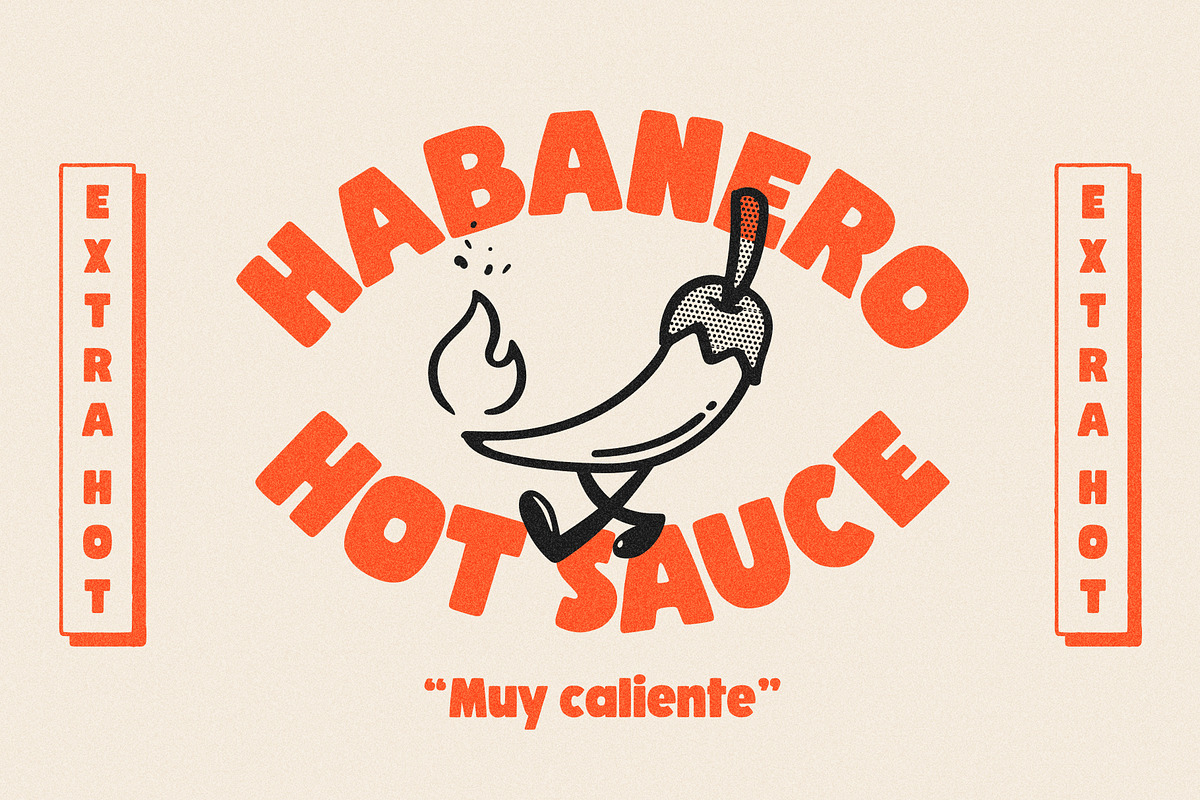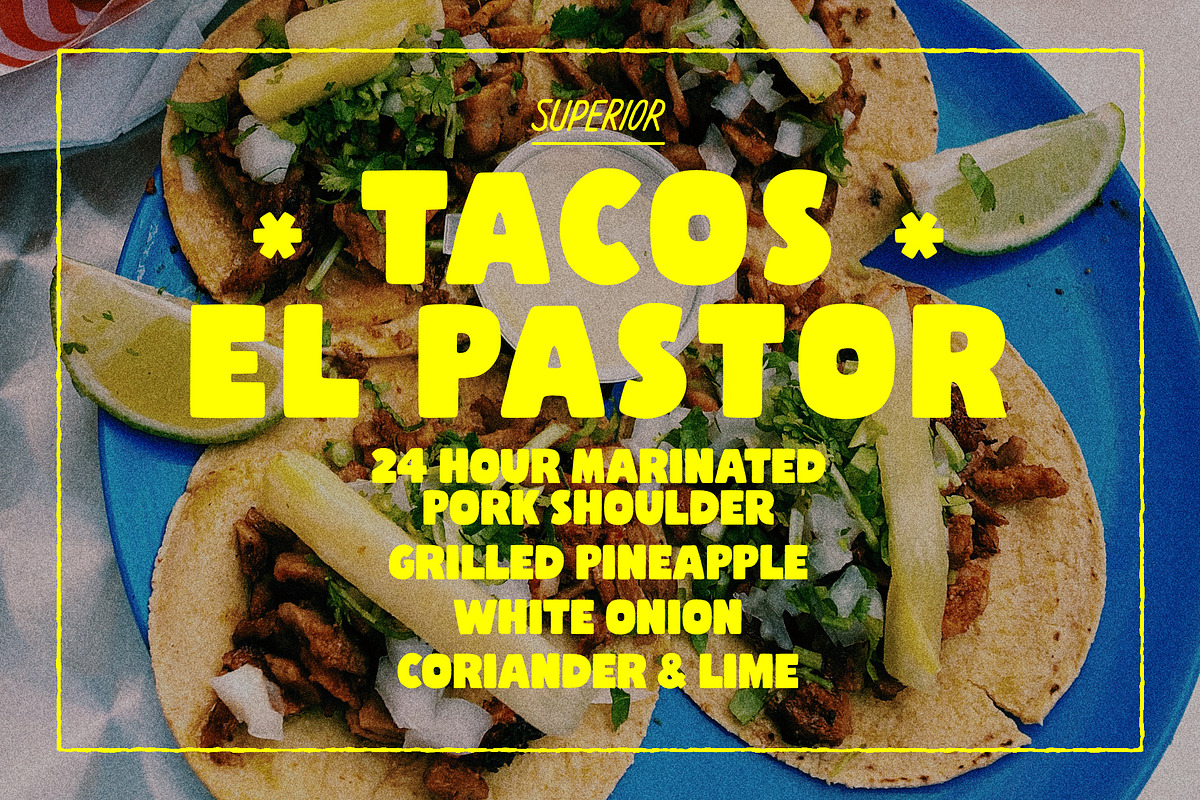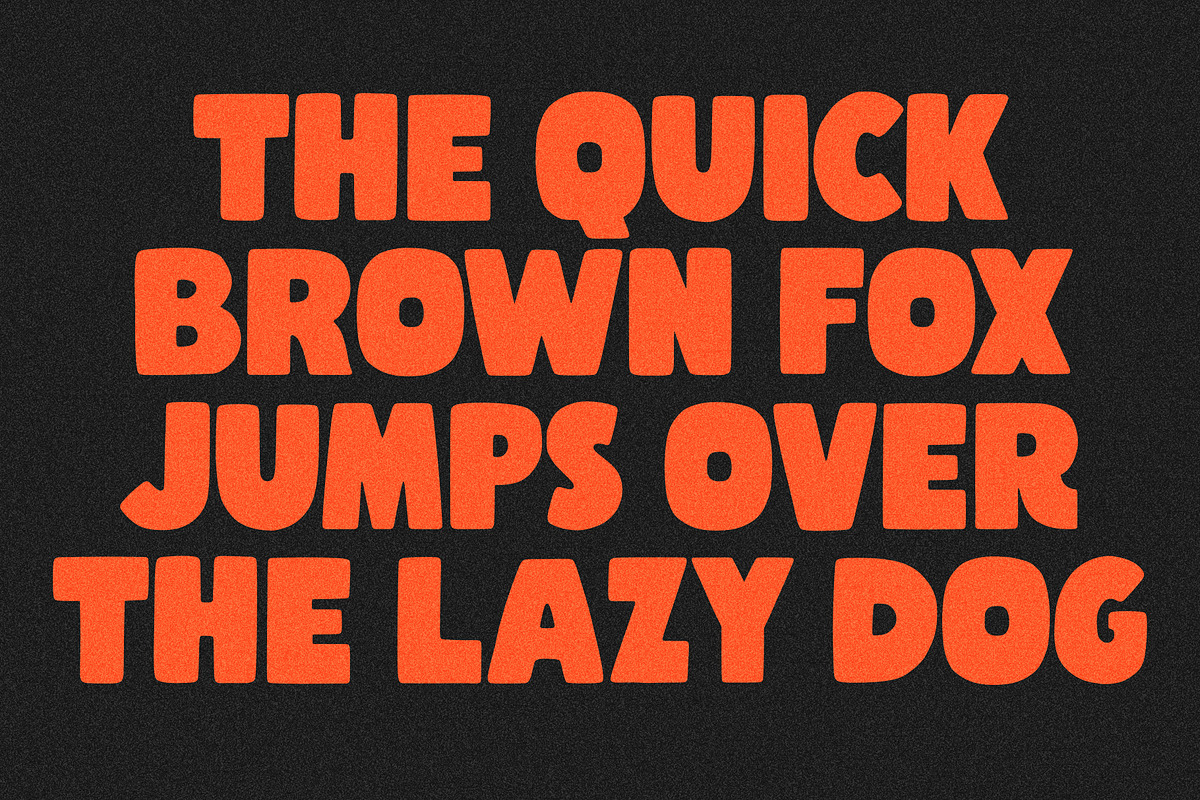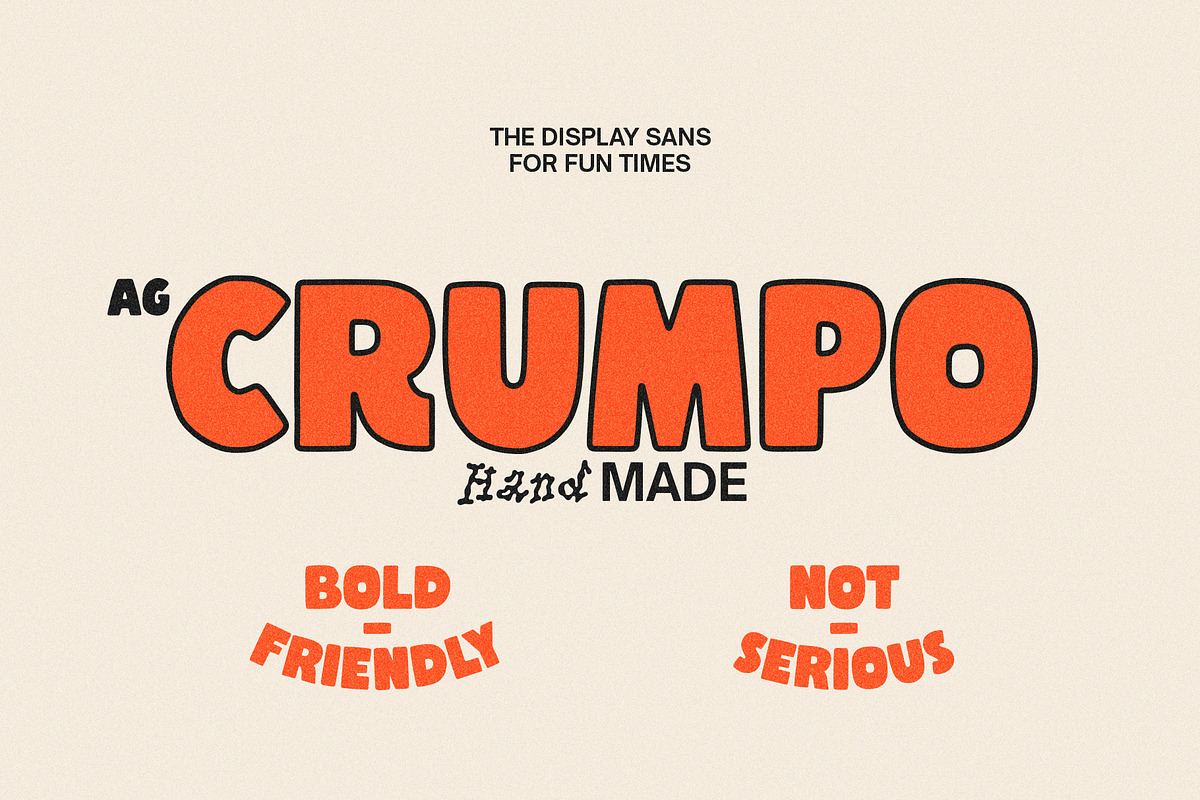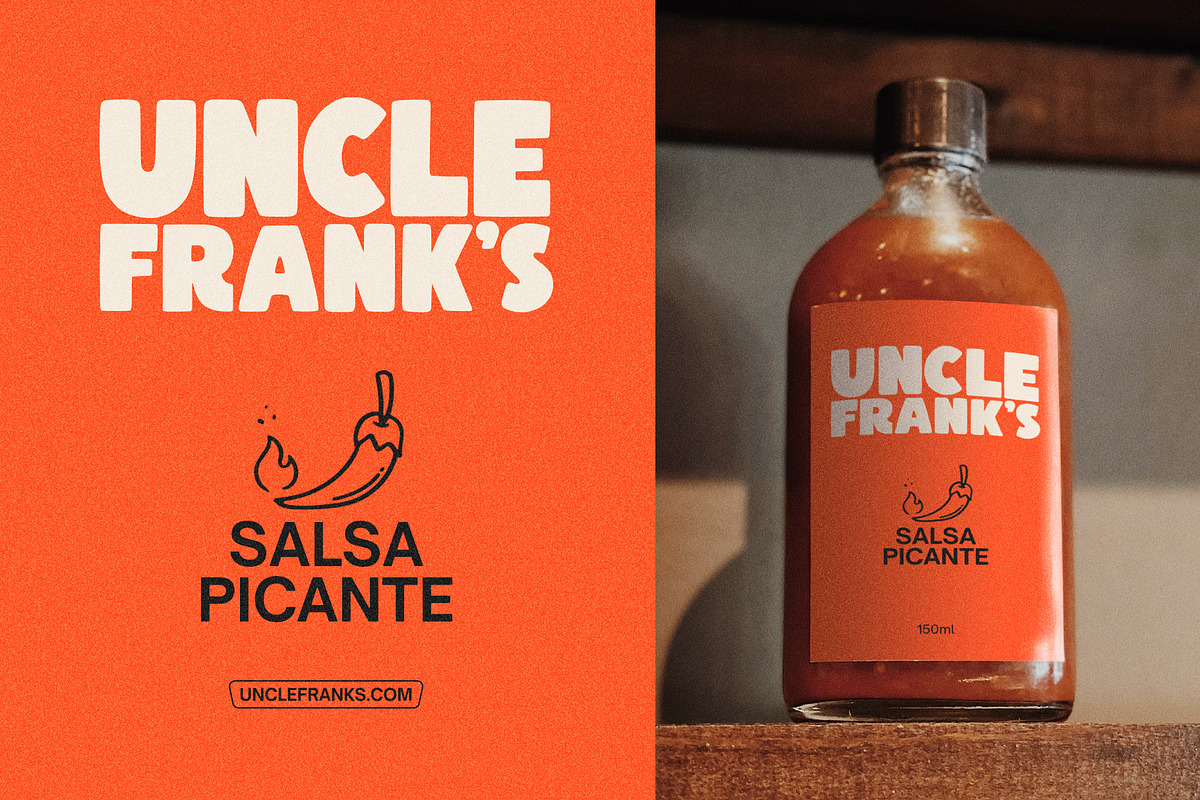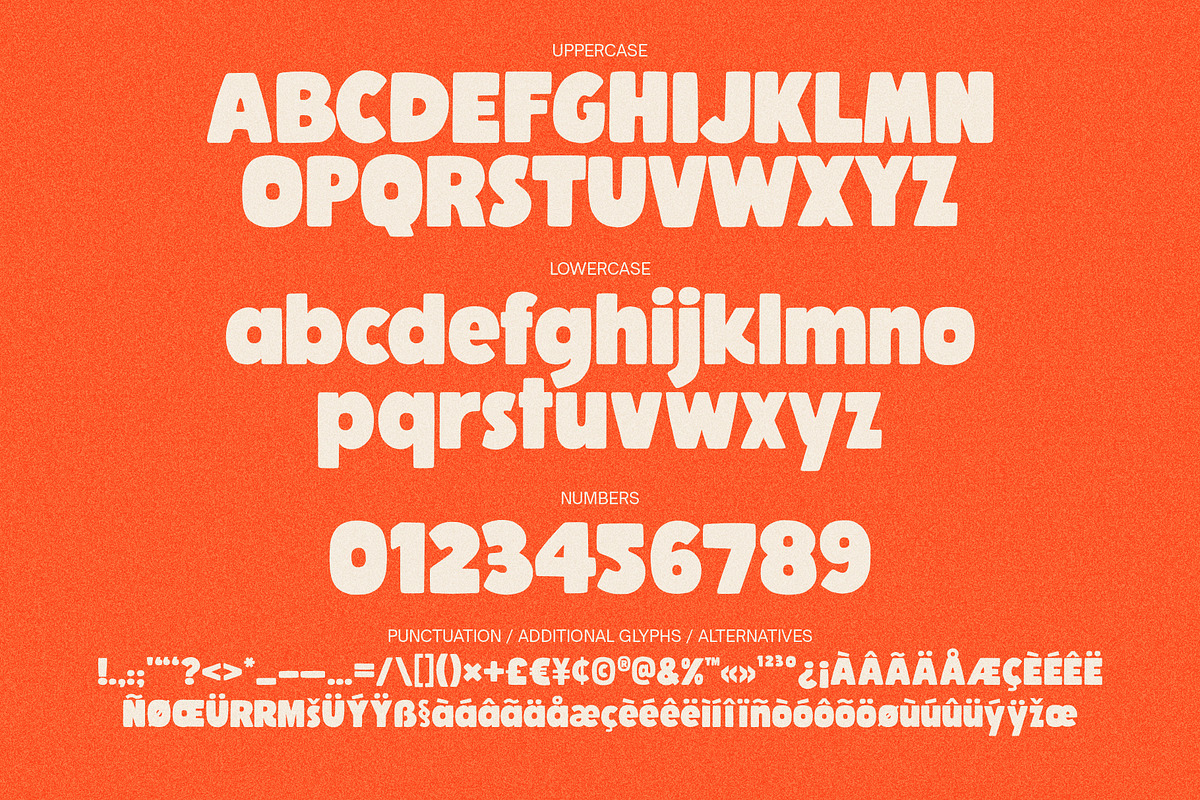
AG CRUMPO
THE FONT FOR FUN TIMES
A hand-drawn font with lots of character. Includes uppercase, lowercase, multi-language glyphs, numbers and punctuation.